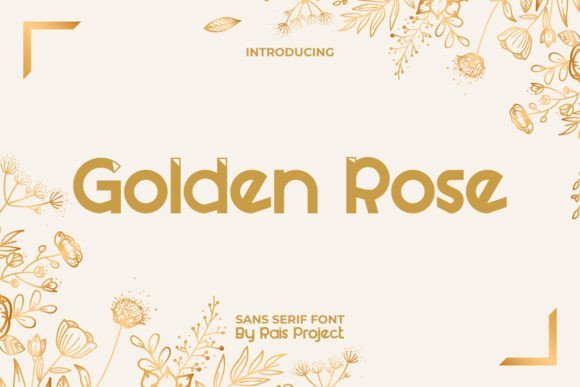
Introduction to Golden Rose Font
Golden Rose Font is a stylish sans serif display font with luxurious theme.
You can find a small triangular shape in the corner of each uppercase letter, as well as some lowercase letters It will be good for any designs, such as brand image, cover, custom design, greeting card, invitation, label, poster, product packaging, quote, signage, web, and more.